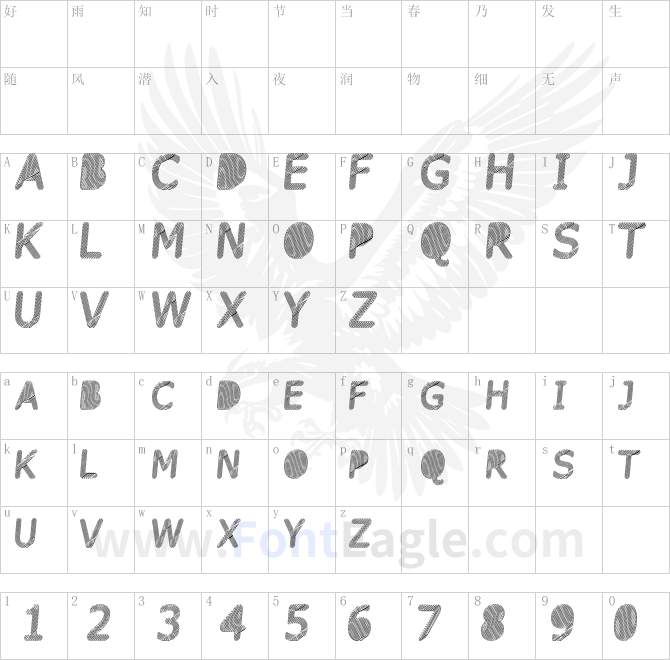
- Font name:linka
linka is a great font, widely used in graphic design, single-page menu design, poster design and other fields, and is deeply loved by designers.linka download.